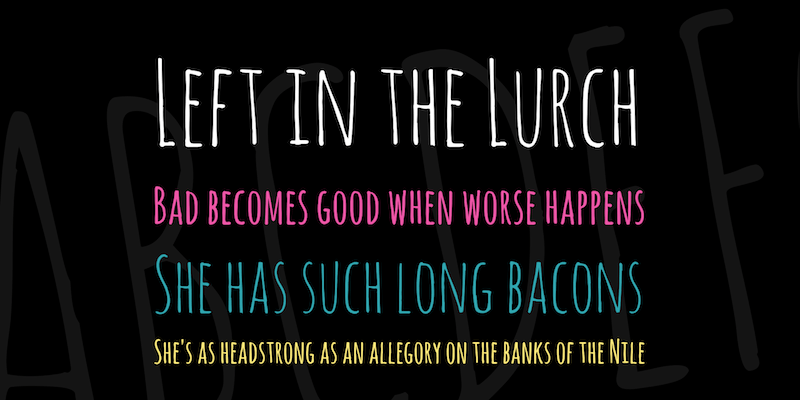
Amatic Has Been Designed To Be Used Freely Across The In.
The amatic sc font has been downloaded 249,872 times. The font collection section is the place where you can browse, filter, custom preview and download. Amatic sc includes a normal and a bold weight.
Download Amatic Font Family · Free For Commercial Use · Amatic Is A Simple But Effective Hand Drawn Webfont.
Amatic Font Fits All Devices And Also Suites Both Web And Printed Display Forms.